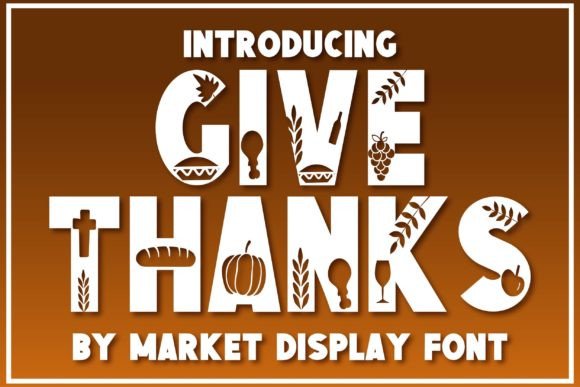
Give Thanks Font: The Perfect Addition to Your Thanksgiving Designs
As the holiday season approaches, designers and crafters are on the lookout for the perfect fonts to add a touch of festivity to their Thanksgiving designs. If you’re looking for a font that exudes warmth, coziness, and gratitude, look no further than the Give Thanks font. This adorable decorative font is sure to make your designs come alive with its festive and versatile feel.
What is Give Thanks Font?
Give Thanks font is a digital font designed specifically for creative projects, such as crafting, scrapbooking, and graphic design. This font is perfect for adding a personal touch to your Thanksgiving-themed designs, from invitations and party decorations to social media graphics and blog posts.
The Give Thanks font is a decorative font, which means it’s designed to add a touch of elegance and sophistication to your designs. Its unique and playful style makes it perfect for a wide range of creative projects, from formal to informal designs.
Features of Give Thanks Font
So, what makes Give Thanks font so special? Here are some of its key features:
- Festive and Versatile: Give Thanks font has a festive and versatile feel that’s perfect for Thanksgiving designs. Its unique style can be used for a wide range of projects, from formal to informal designs.
- Cute and Adorable: This font is undeniably cute and adorable, making it perfect for adding a touch of whimsy to your designs.
- Easy to Read: Despite its decorative style, Give Thanks font is easy to read, making it perfect for use in body text and titles.
- Scalable: Give Thanks font is scalable, which means it can be used for a wide range of projects, from small crafts to large-scale graphic designs.
Uses of Give Thanks Font
Give Thanks font is a versatile font that can be used for a wide range of creative projects, including:
- Thanksgiving Invitations: Use Give Thanks font to create beautiful and festive invitations for your Thanksgiving party or gathering.
- Scrapbooking: Add a touch of festivity to your scrapbook pages with Give Thanks font.
- Graphic Design: Use Give Thanks font in your graphic designs, such as social media graphics, blog posts, and more.
- Crafting: Give Thanks font is perfect for crafters, who can use it to create handmade cards, gift tags, and other crafts.
Benefits of Using Give Thanks Font
So, why should you use Give Thanks font in your designs? Here are some of the benefits of using this font:
- Adds a Touch of Festivity: Give Thanks font adds a touch of festivity and whimsy to your designs, making them perfect for Thanksgiving-themed projects.
- Unique and Playful Style: This font has a unique and playful style that sets it apart from other fonts.
- Scalable: This font is scalable, making it perfect for use in a wide range of projects.
Tips for Using Give Thanks Font
Here are some tips for using Give Thanks font in your designs:
- Use it for Headings: Give Thanks font is perfect for use in headings and titles, where its festive and playful style can really shine.
- Pair it with Other Fonts: Experiment with pairing Give Thanks font with other fonts to create a unique and interesting look.
- Use it in Digital Designs: Give Thanks font is perfect for use in digital designs, such as social media graphics and blog posts.
- Experiment with Colors: Experiment with different colors to find the perfect combination for your design.
In conclusion, Give Thanks font is a cute and adorable decorative font that’s perfect for adding a touch of festivity to your Thanksgiving designs. Its unique and playful style makes it perfect for a wide range of creative projects, from formal to informal designs. With its ease of use, scalability, and versatility, Give Thanks font is a must-have for designers and crafters looking to create beautiful and festive designs.